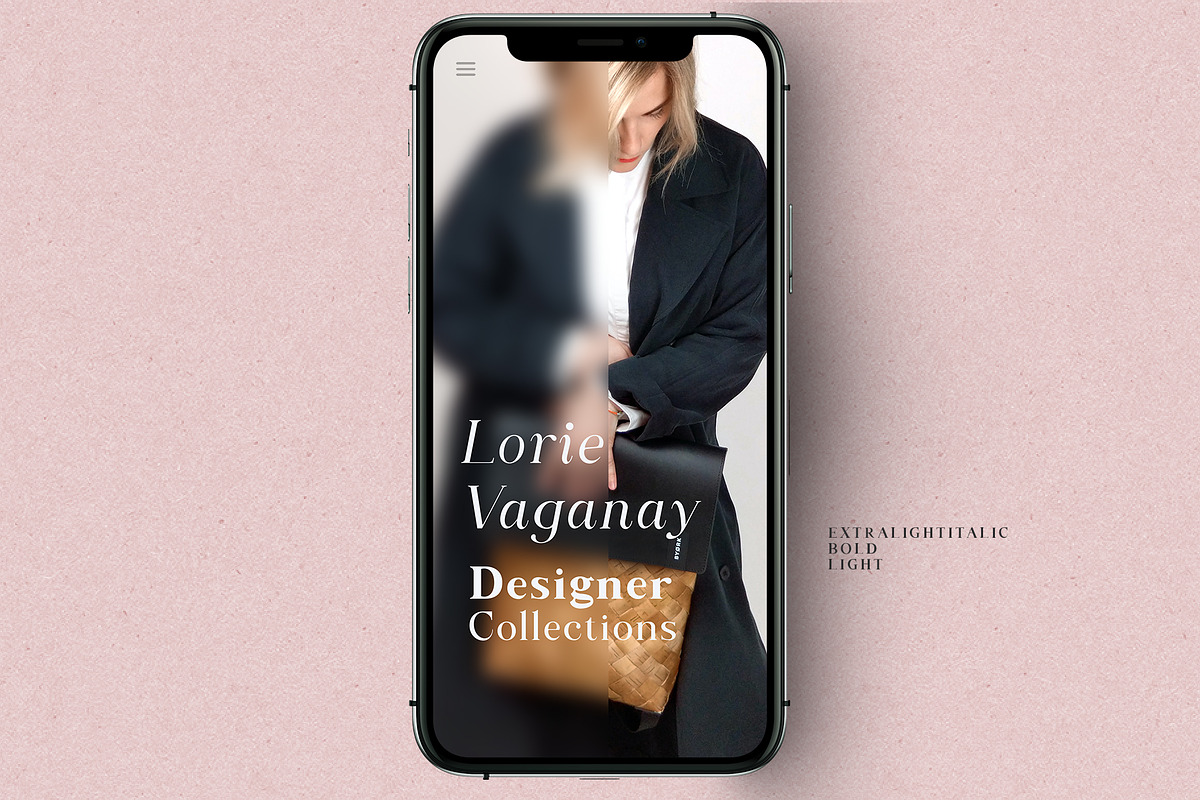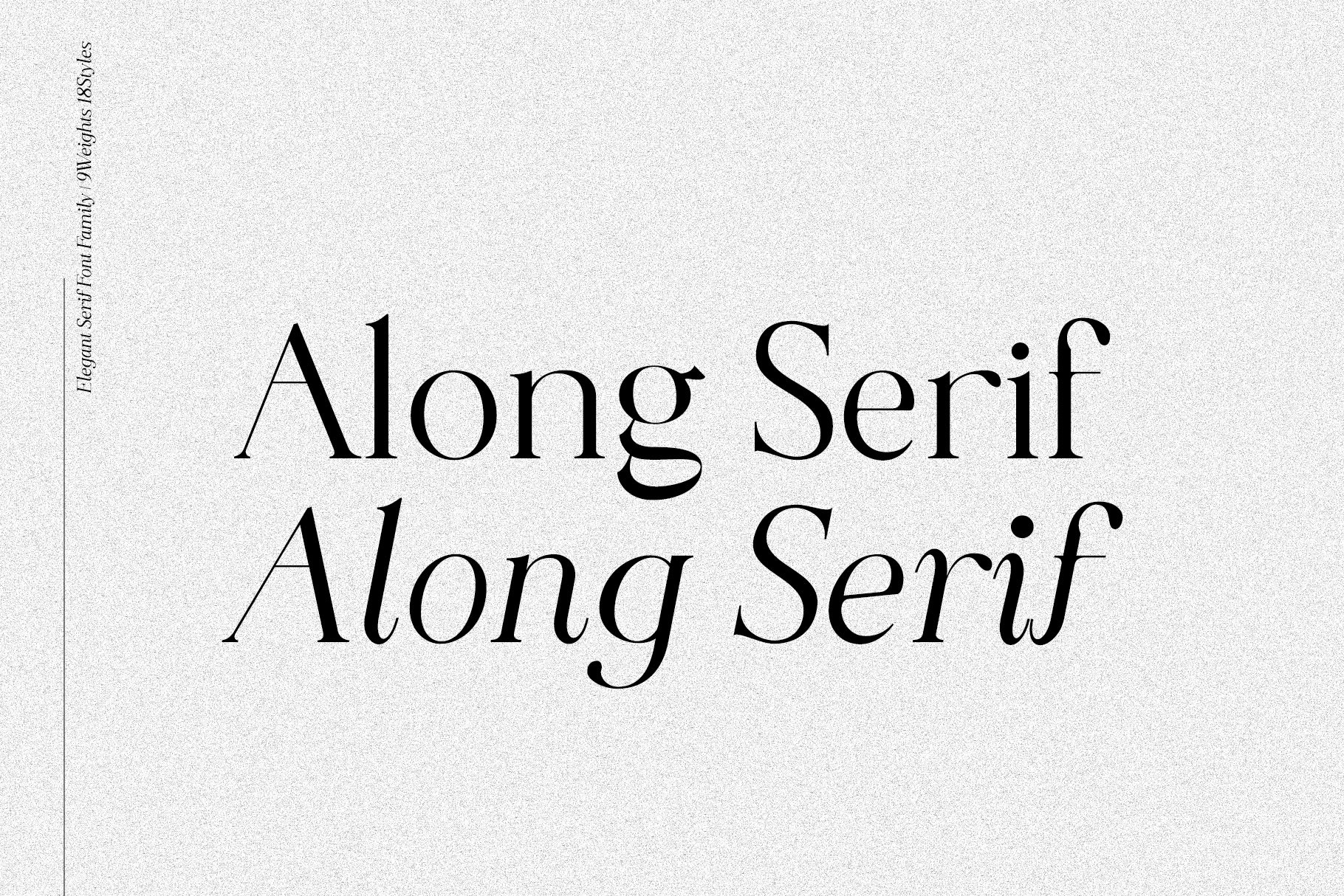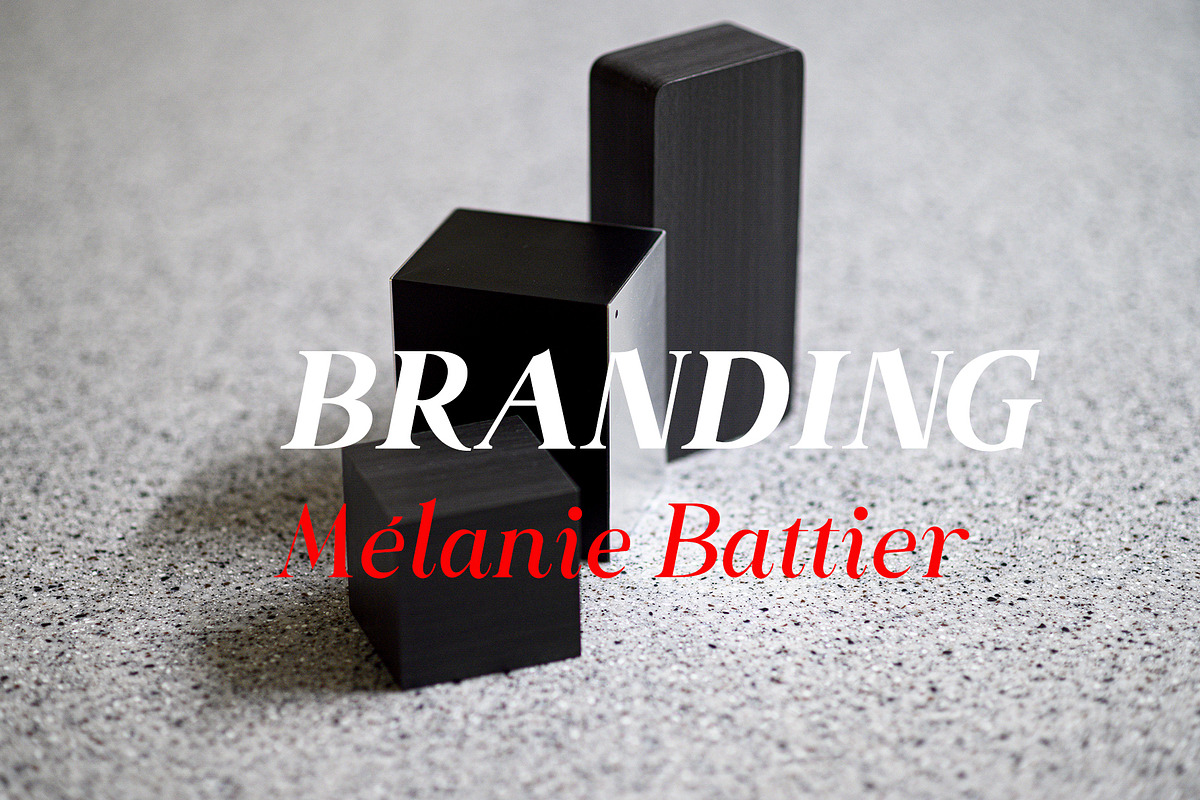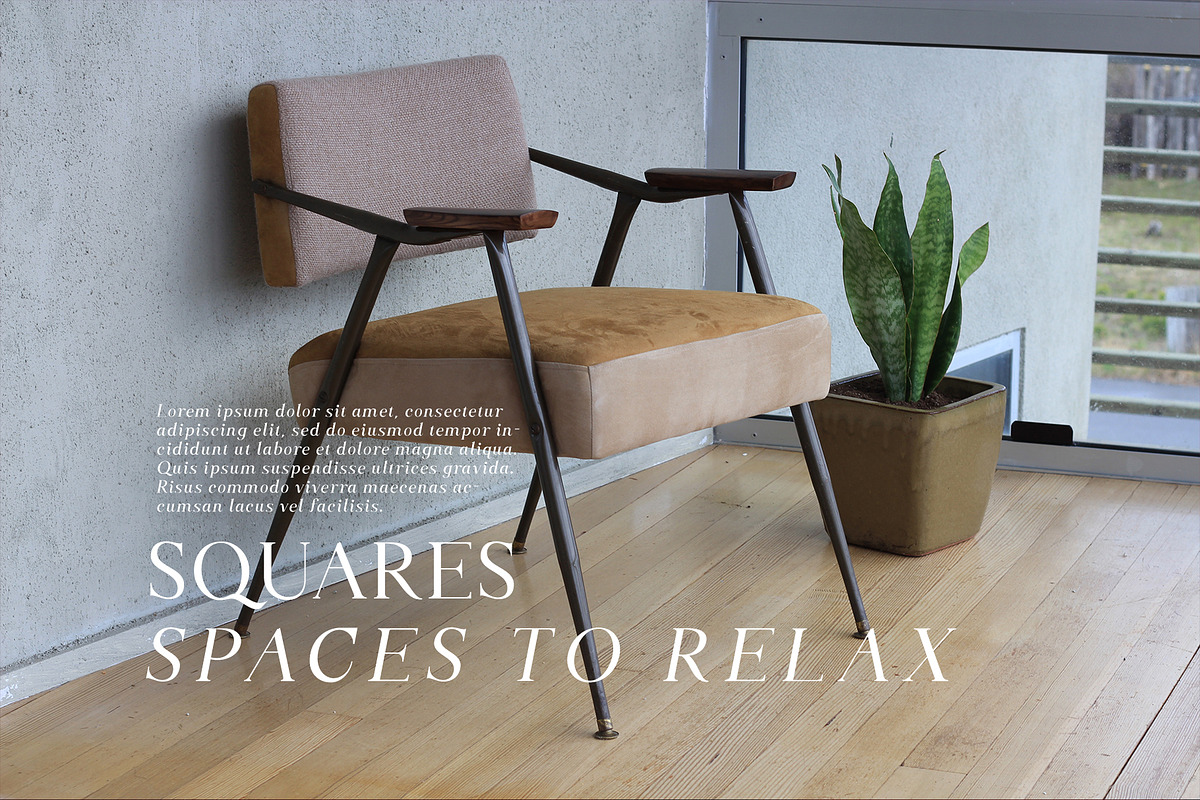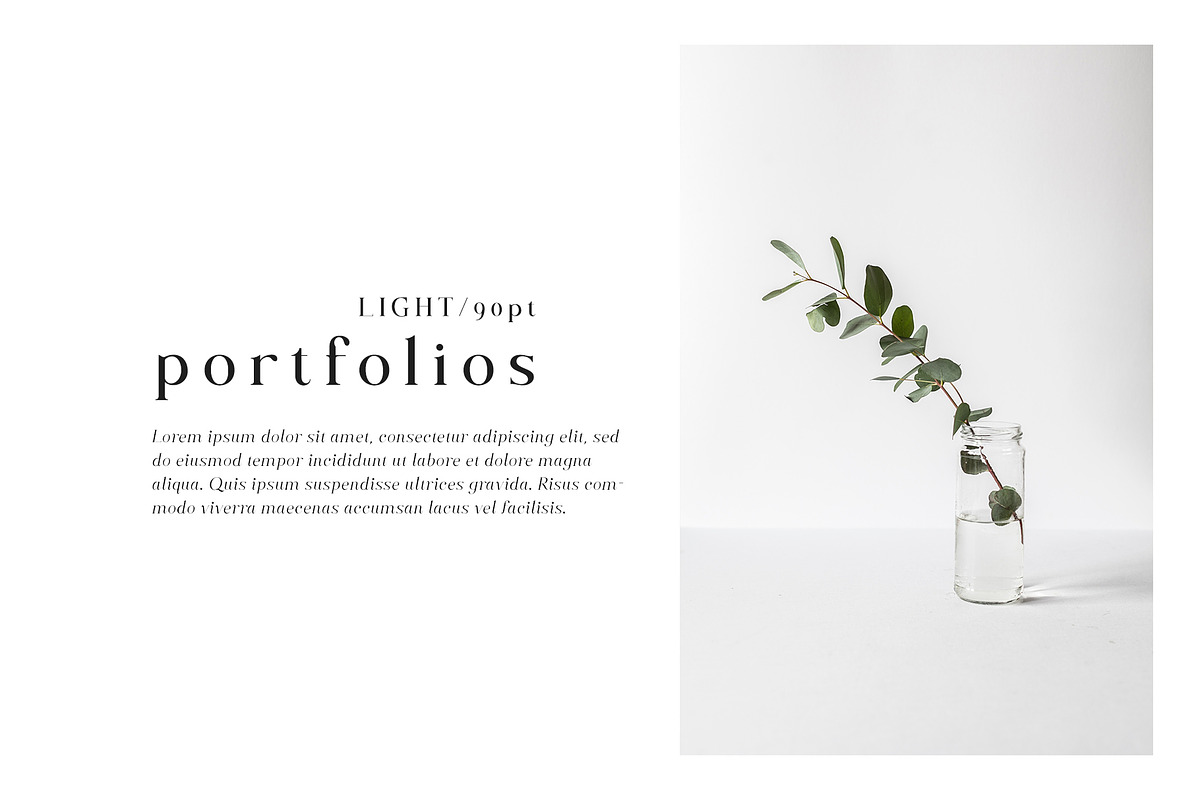
Along Serif BSC Font Family
Along Serif BSC is a elegant font family, which designed by Ryul Davidson of the Brenners Template.
It is designed to blend classic delicacy with modern rhythm of glyphs to suit any design works.
And, the rhythmic skeletons of italic styles enhance the designer's palette.
With its italic lowercase glyphs, the control of breathing layout is a privilege that designers can have.
Circled glyphs are often used by professional designers like you.
- Oldstyle Figures
- Fractions
- ccmp, dnom, lnum, locl, numr, ordn, sups.